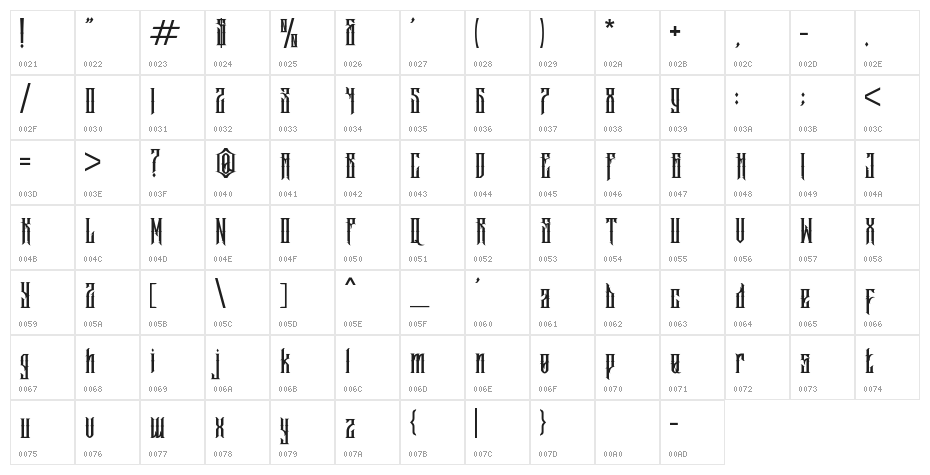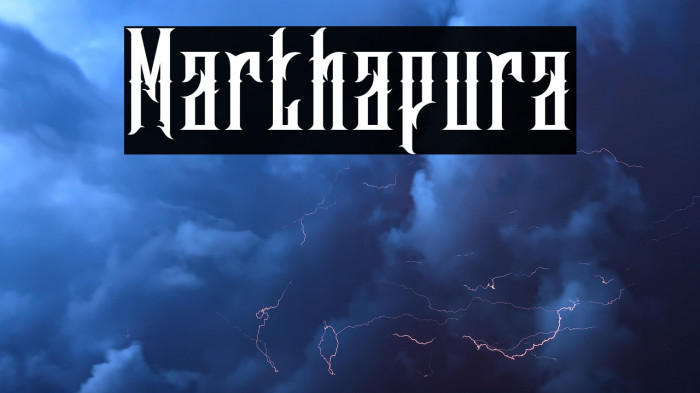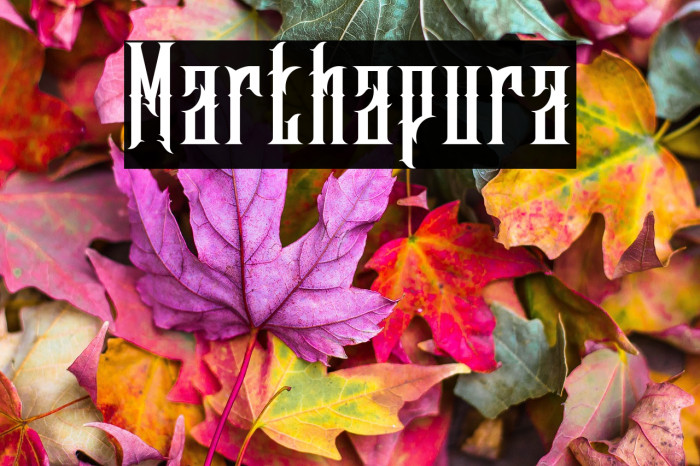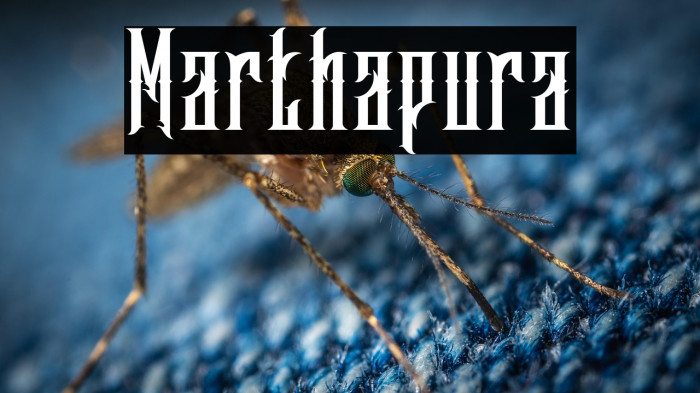
Marthapura Font
Marthapura Description
This font features a striking and intricate design, reminiscent of traditional Blackletter styles. The characters are tall and narrow, with sharp, angular lines and decorative serifs that give it a gothic and medieval appearance. The uppercase letters are particularly elaborate, with additional flourishes that enhance their dramatic look. The lowercase letters maintain the same stylistic elements but are slightly more subdued. Numbers and special characters are consistent with the overall theme, ensuring a cohesive aesthetic across all glyphs. This font is ideal for projects that require a bold and historical feel, such as themed event invitations, posters, or branding for products that want to convey a sense of tradition and craftsmanship.
| Proposed Projects | Ideal for themed event invitations, historical posters, or traditional branding. |